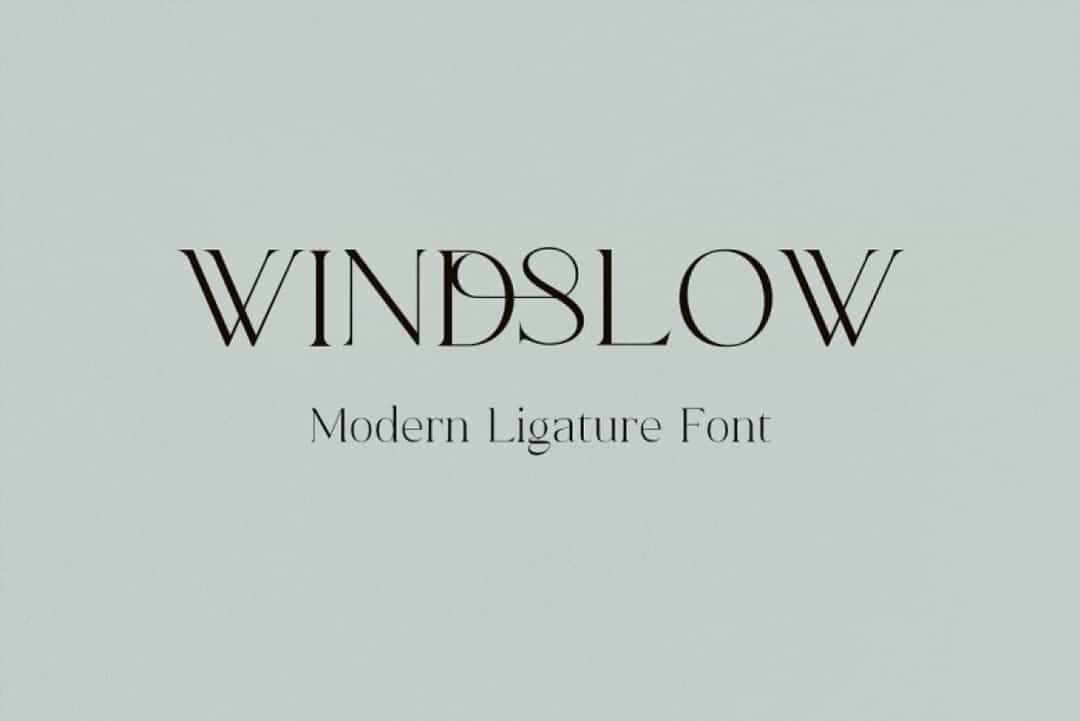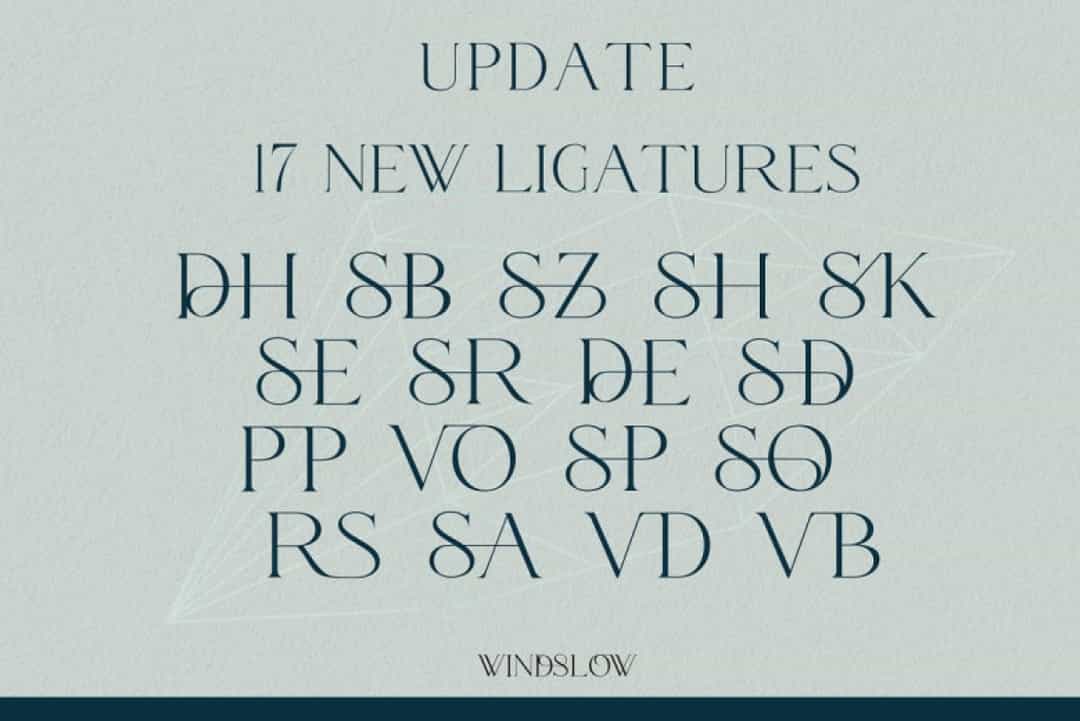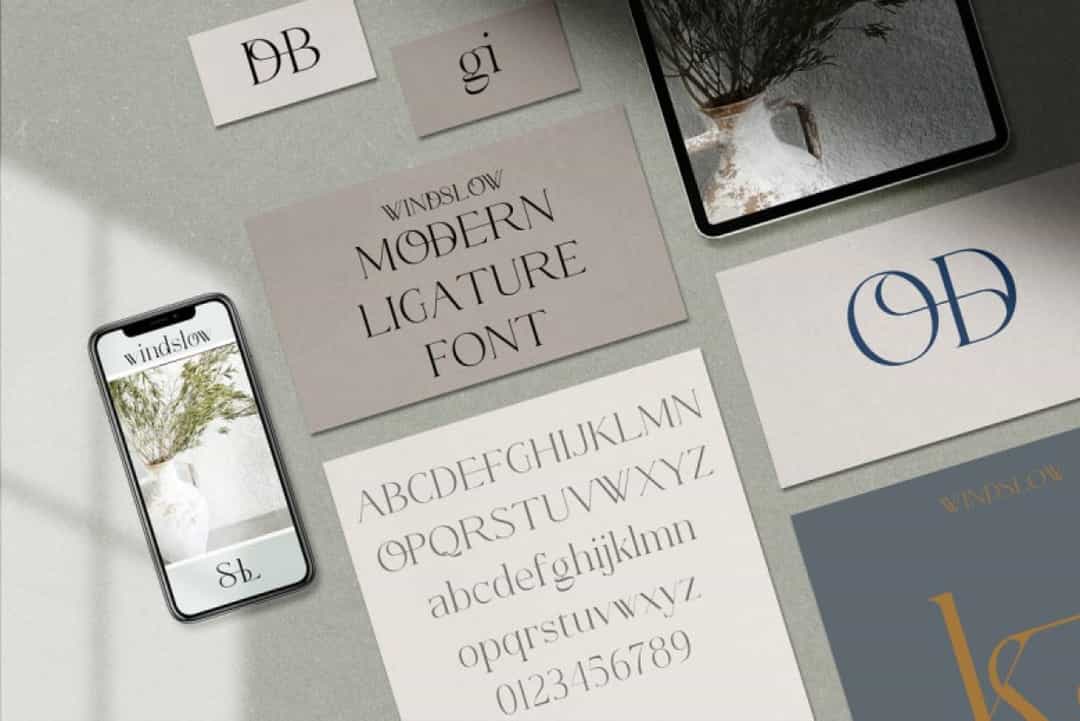
Windslow is an elegant serif font designed to create logos and brand Identities. Offering a variety of original ligatures, this font makes an excellent choice for creating elegant logos, stunning editorials, invitations, quotes and much more!